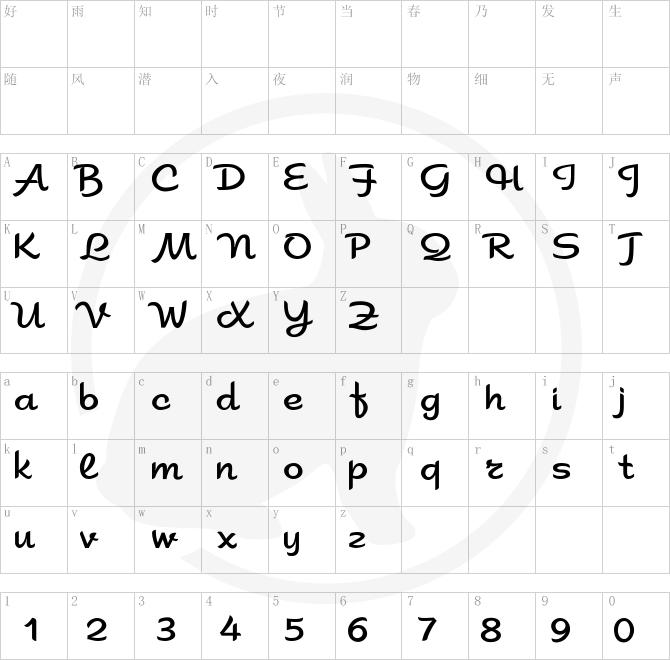
- Font Name:Sahara
Sahara.ttf is a very beautiful artistic font, Sahara.ttf is widely used in the design and printing of various books and pictures,Sahara.ttf has a strong visual impact,Sahara.ttf is a commonly used font in newspapers, magazines and books, and is used in posters, e-commerce Poster design, store design, logo design, font design and other fields.Sahara.